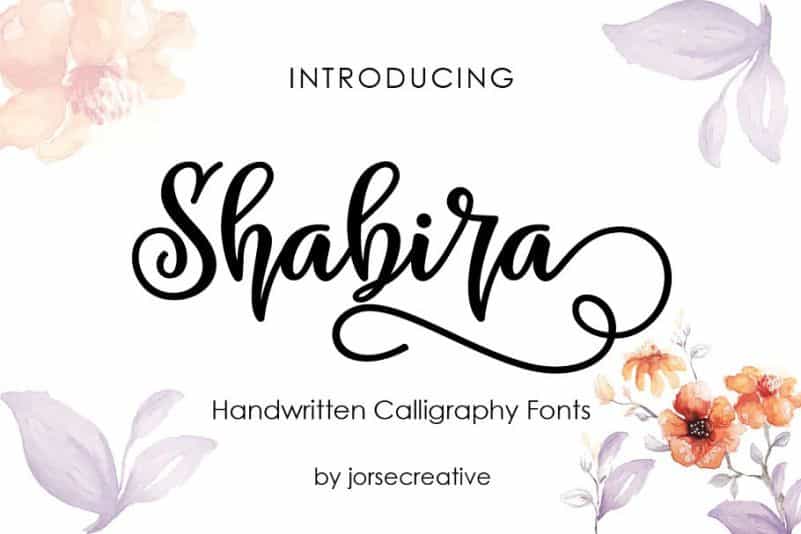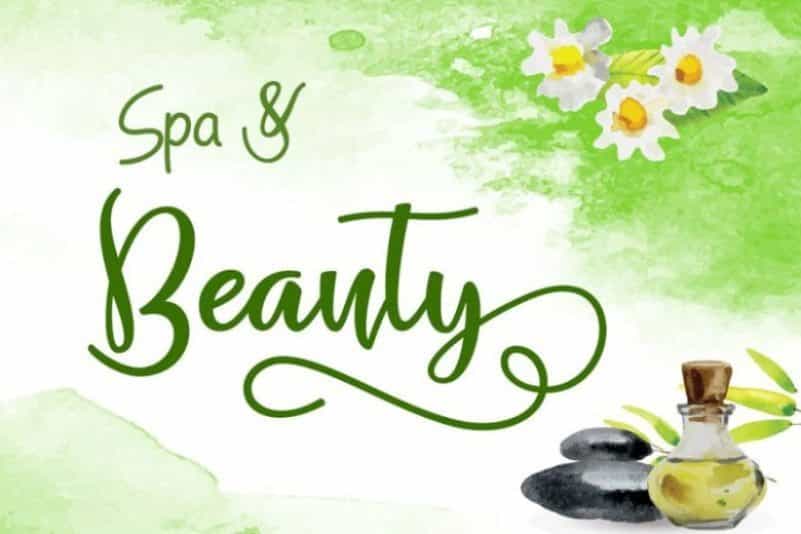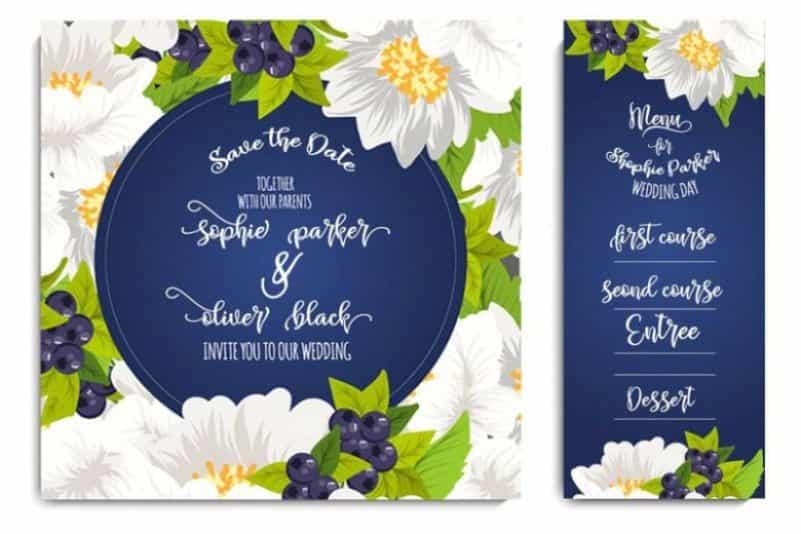
Shabira is a beautiful new script font that is very fashionable with a light touch of handwriting. Shabira script has a very special and very suitable calligraphy for use in modern design.